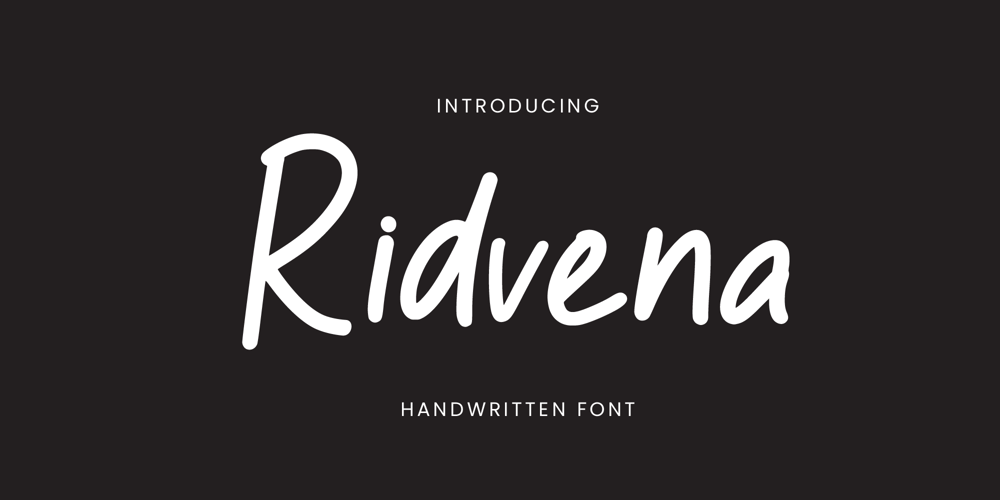
Ridvena Font Family was designed by Randi Irvan and published by Rvandtype. Ridvena contains 1 styles and family package options. Ridvena is a handwritten font. It has an elegant and playful look that can be used for logos, branding, invitations, stationery, wedding designs, social media posts, and so much more.